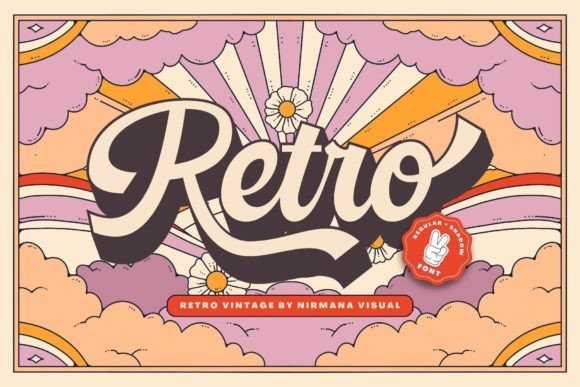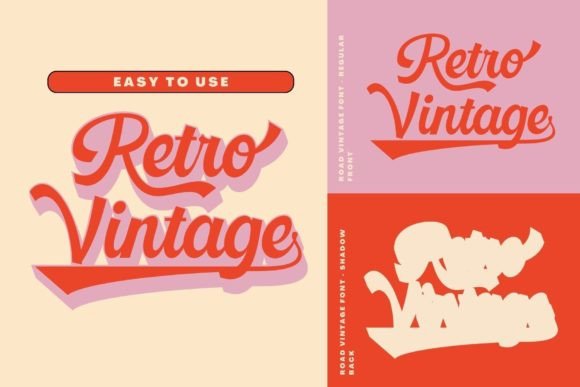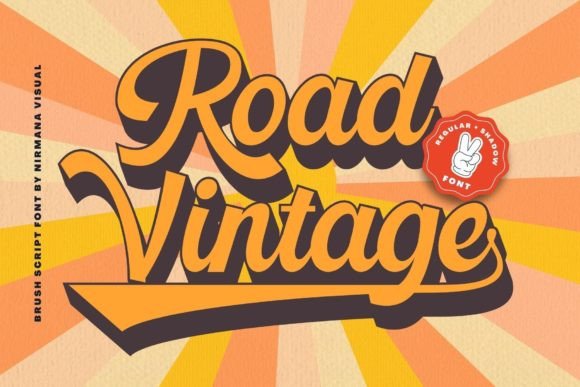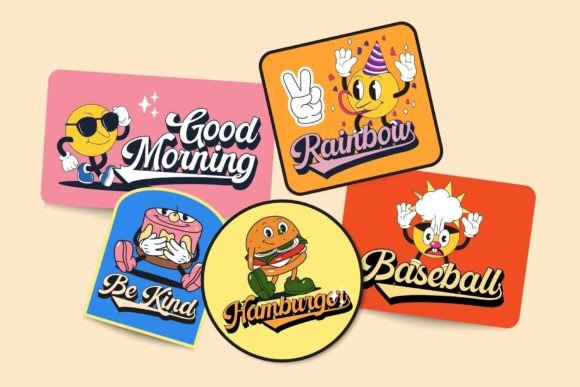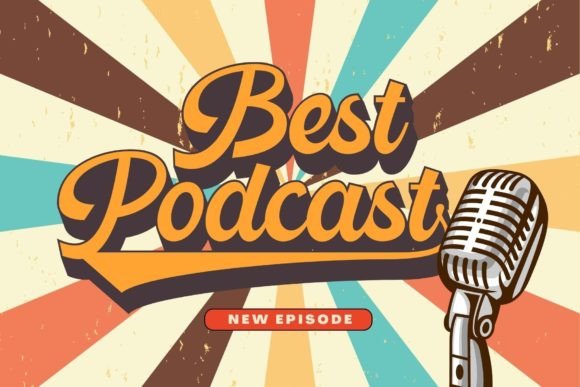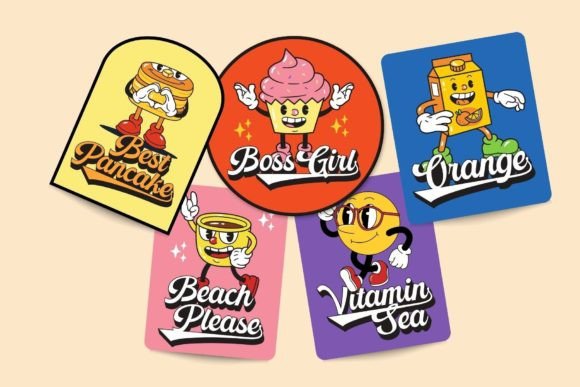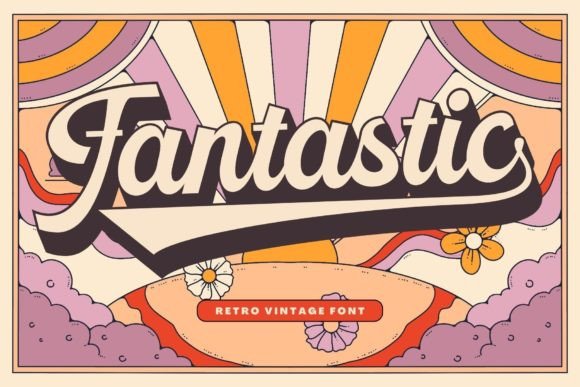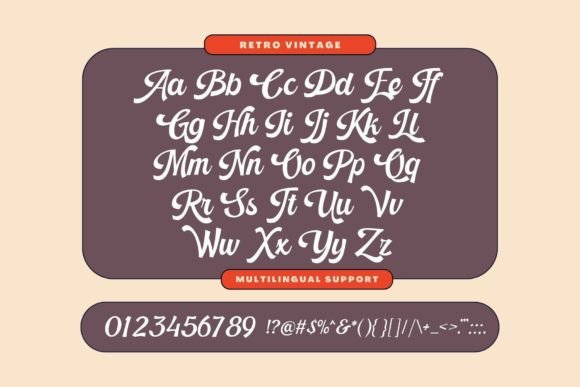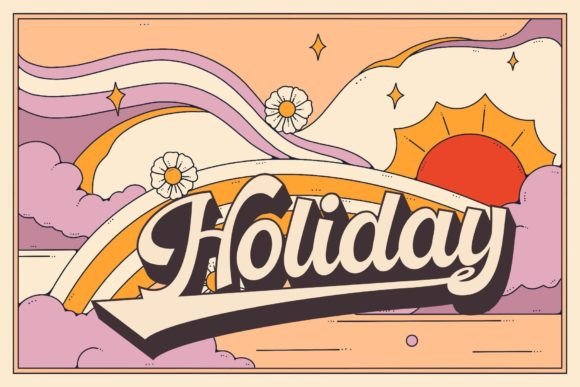
Retro Vintage Font
About Retro Vintage Font
Retro Vintage, inspired by the design era of the 70s, brings forth a captivating blend of nostalgia and contemporary appeal. This font is a harmonious typographic choice that lends itself beautifully to a diverse range of design projects, making it well-suited for logos and branding, social media posts, advertisements, and product designs.
The design inspiration drawn from the 70s era infuses Retro Vintage with a unique character, capturing the essence of a bygone time while maintaining a relevance that resonates with modern design trends. This duality makes it a versatile font that can seamlessly integrate into various design contexts.
In logos and branding, Retro Vintage adds a touch of authenticity and retro flair. Its typographic elements evoke a sense of history and timelessness, making it suitable for businesses or projects that want to convey a vintage aesthetic while staying current and appealing.
For social media posts, Retro Vintage brings a distinctive charm to textual content. Whether used for quotes, announcements, or promotional material, the font enhances the visual appeal, creating a sense of visual continuity across different platforms.
In advertisements and product designs, Retro Vintage becomes a powerful tool to communicate a specific style or mood. The font’s nostalgic undertones can contribute to creating a connection with the audience, making it an excellent choice for products or campaigns that draw inspiration from the past.
In summary, Retro Vintage stands as a testament to the enduring appeal of 70s design. Its typographic harmony and versatility make it a valuable asset for designers seeking to infuse their projects with a touch of retro sophistication. Whether applied to logos, social media posts, advertisements, or product designs, Retro Vintage adds a distinctive and appealing element to the visual landscape.